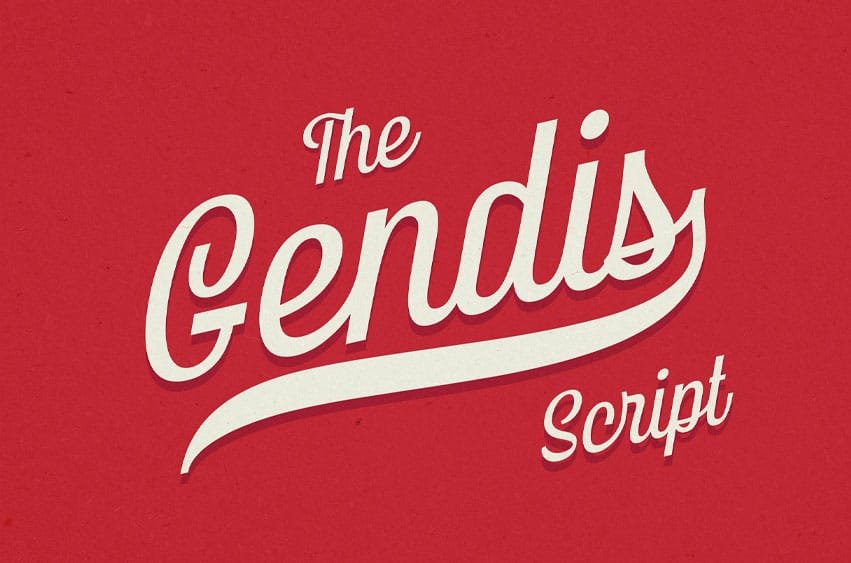
Gendis Script Font is a script typeface, comes in with strong styles.
This typeface is perfectly for all your creative work such as branding projects, packaging design, ads and more.